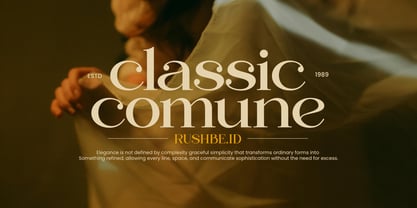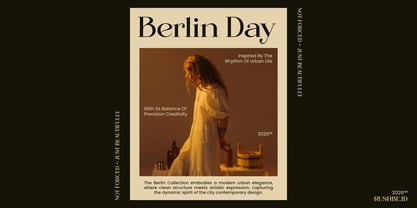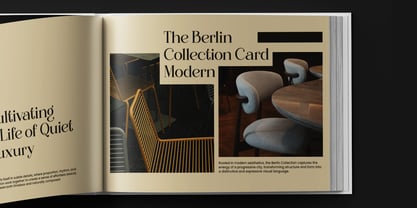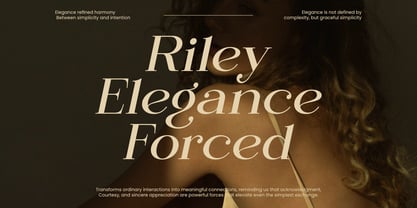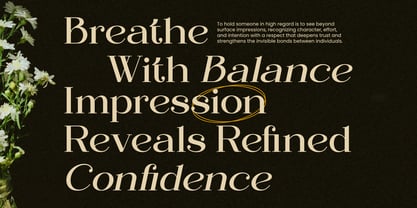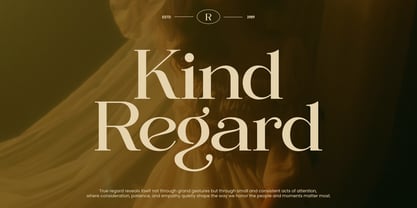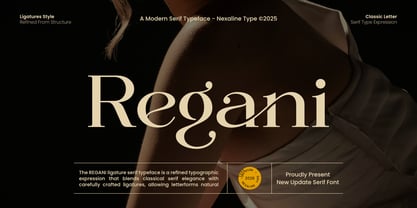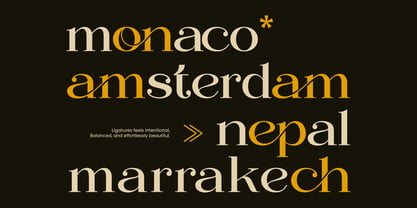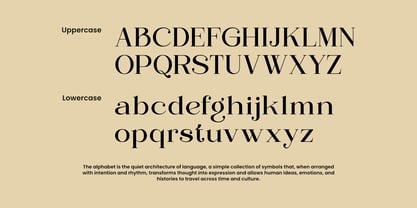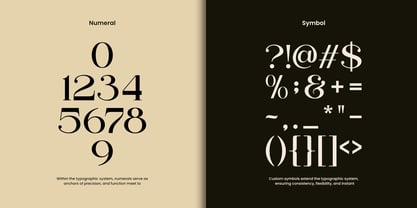
Regani
by Nexaline Type
The Regani Font Family was designed by Anggi Surya and published by Nexaline Type. Regani contains 2 styles and family package options. More about this family
Regani is a refined modern ligature serif typeface that flawlessly blends classical serif elegance with contemporary sophistication. It is designed to evoke confidence, grace, and an effortlessly beautiful aesthetic. With its high-contrast strokes, gracefully sculpted curves, and carefully crafted ligatures, it creates a powerful and distinctive visual language for premium designs. Perfect for: High-End Branding & Logo Identity Luxury Packaging & Fashion Labels Editorial Headlines & Magazine Mastheads Elegant Wedding Stationery & Invitations Distinctive Social Media Typography What’s Inside: Regani Regular & Italic Full Character Set (A-Z, 0-9, Punctuation) Exquisite Custom Ligatures & Stylistic Alternates Extensive Multilingual Support (170+ Languages) PUA Encoded for full glyph access in all apps
Designers: Anggi Surya
Foundry: Nexaline Type